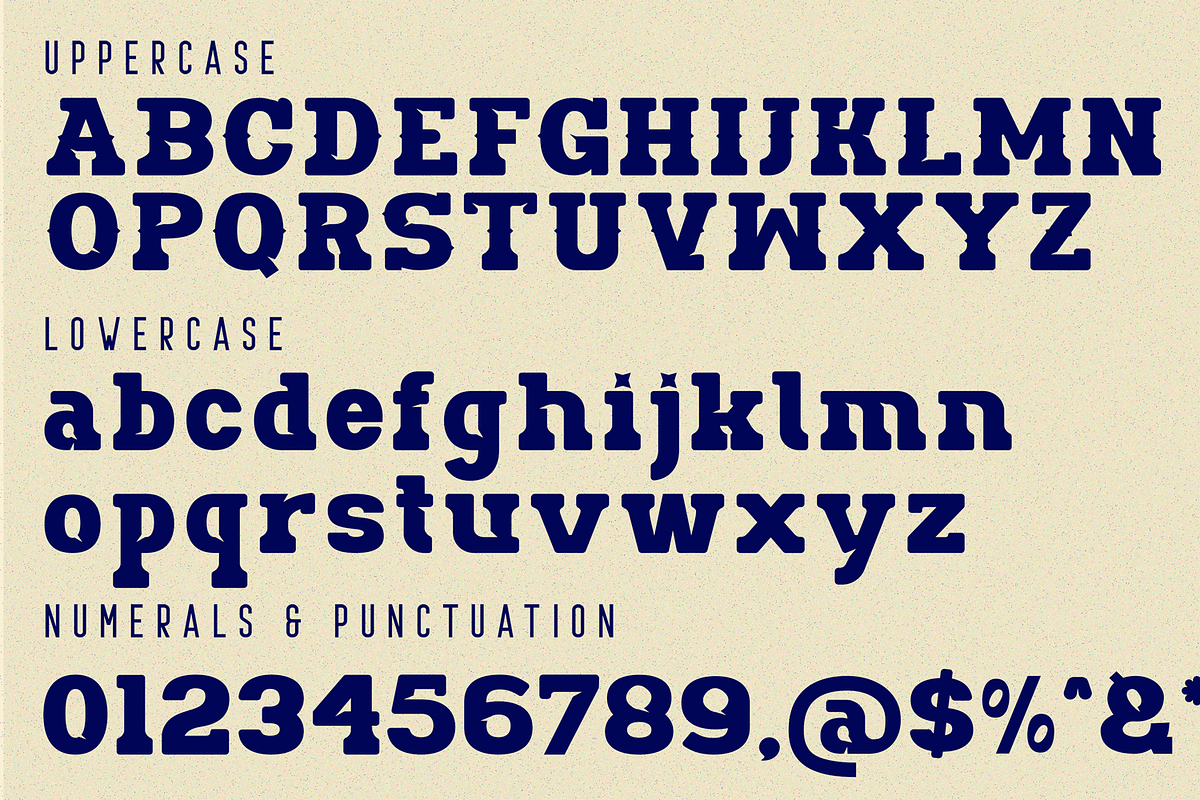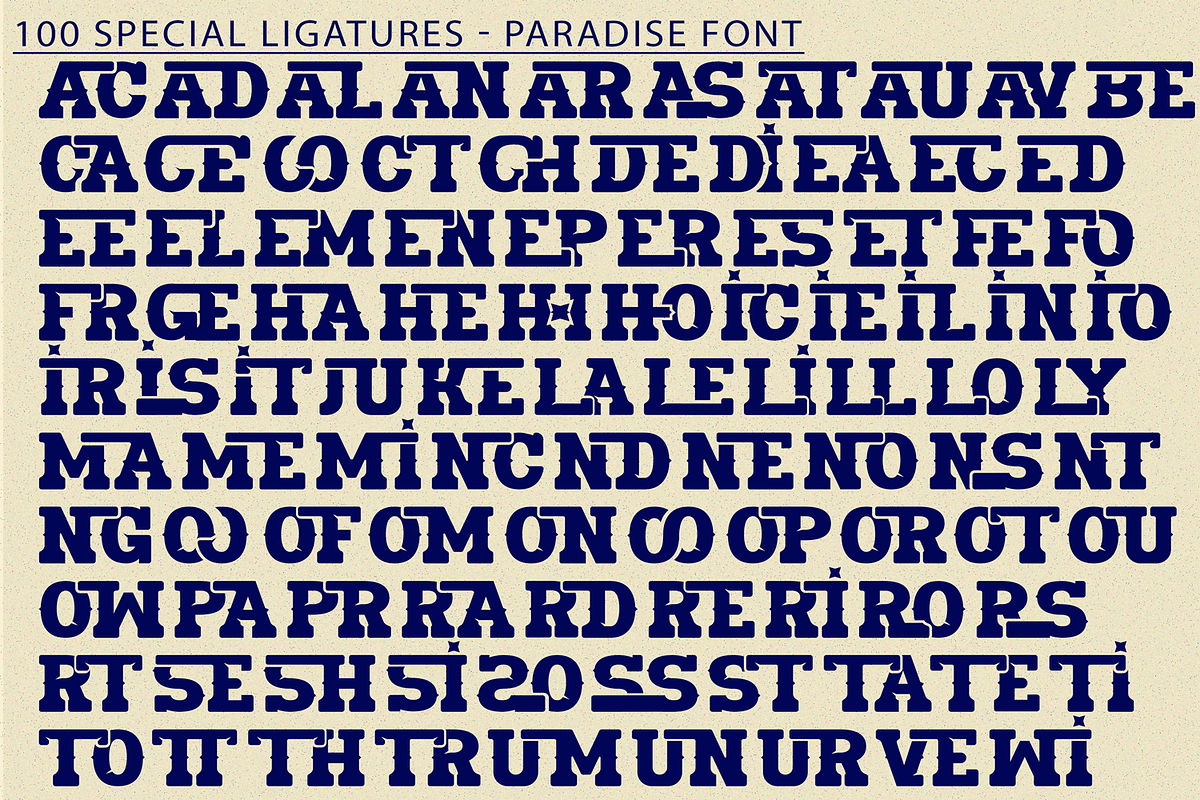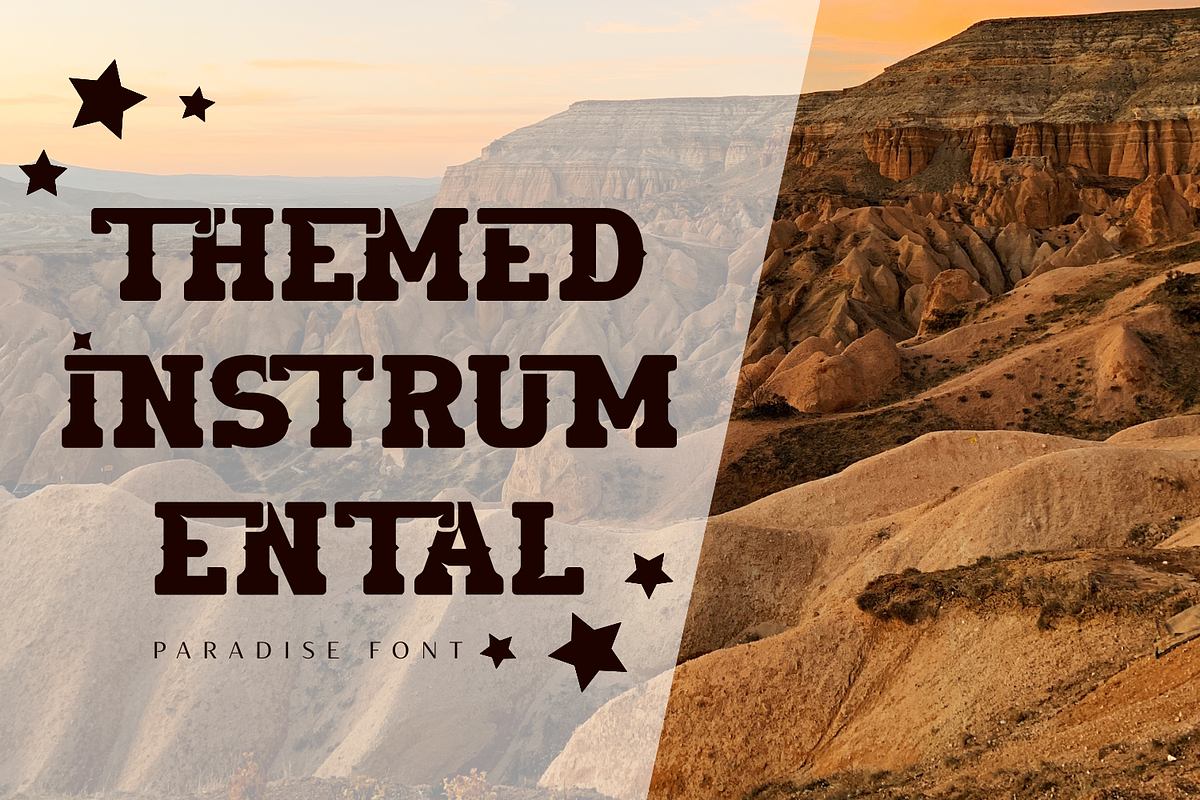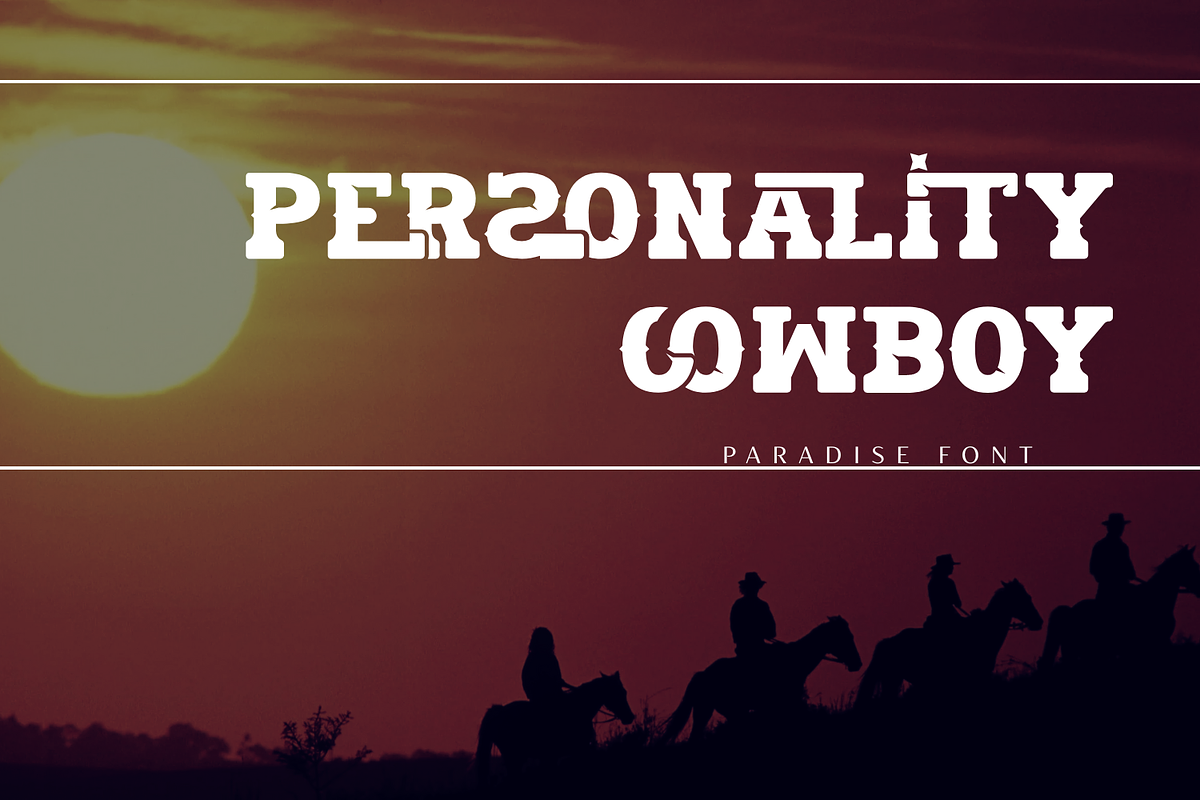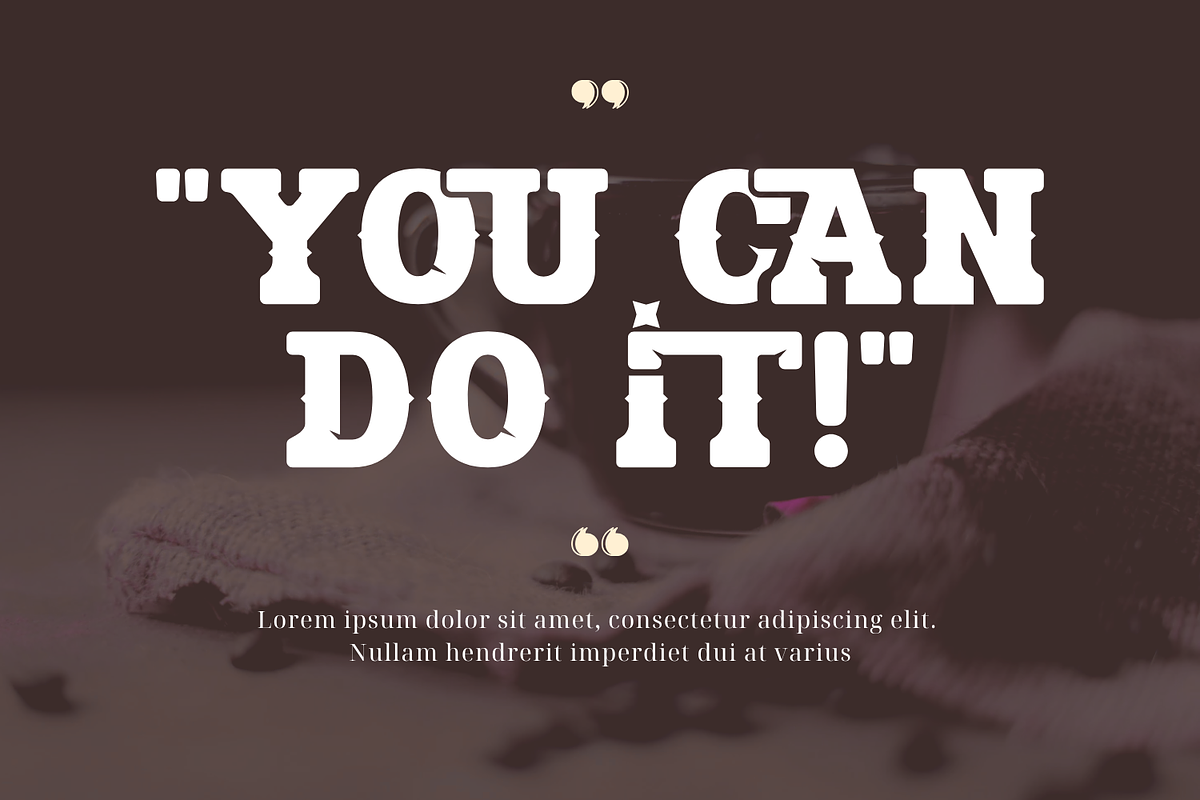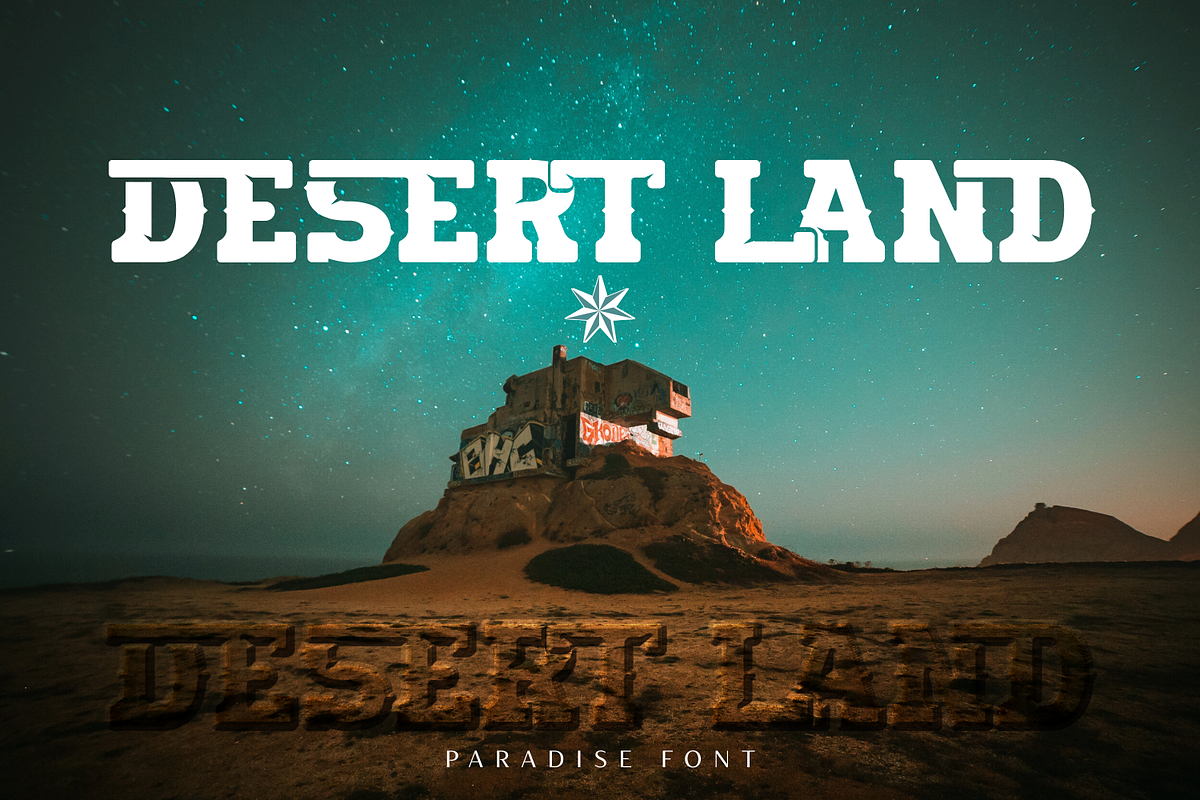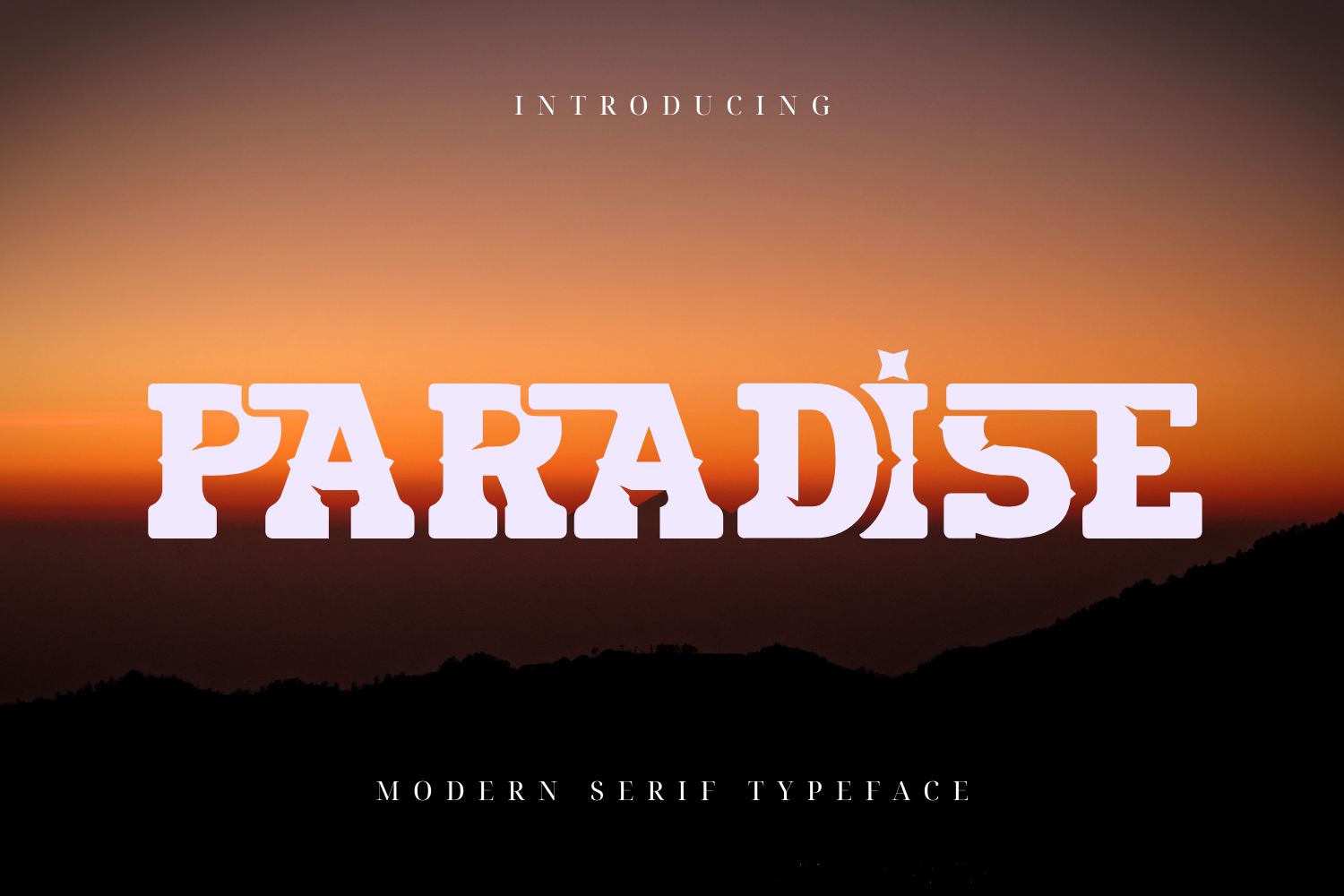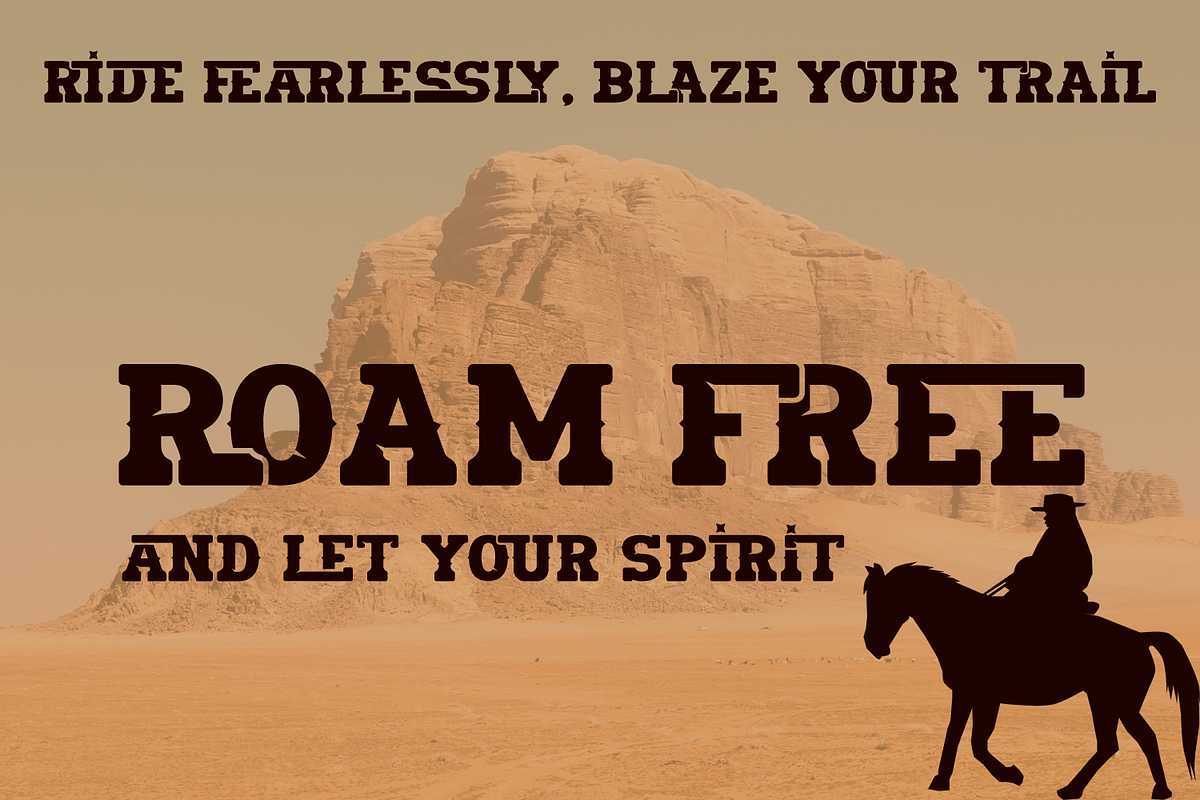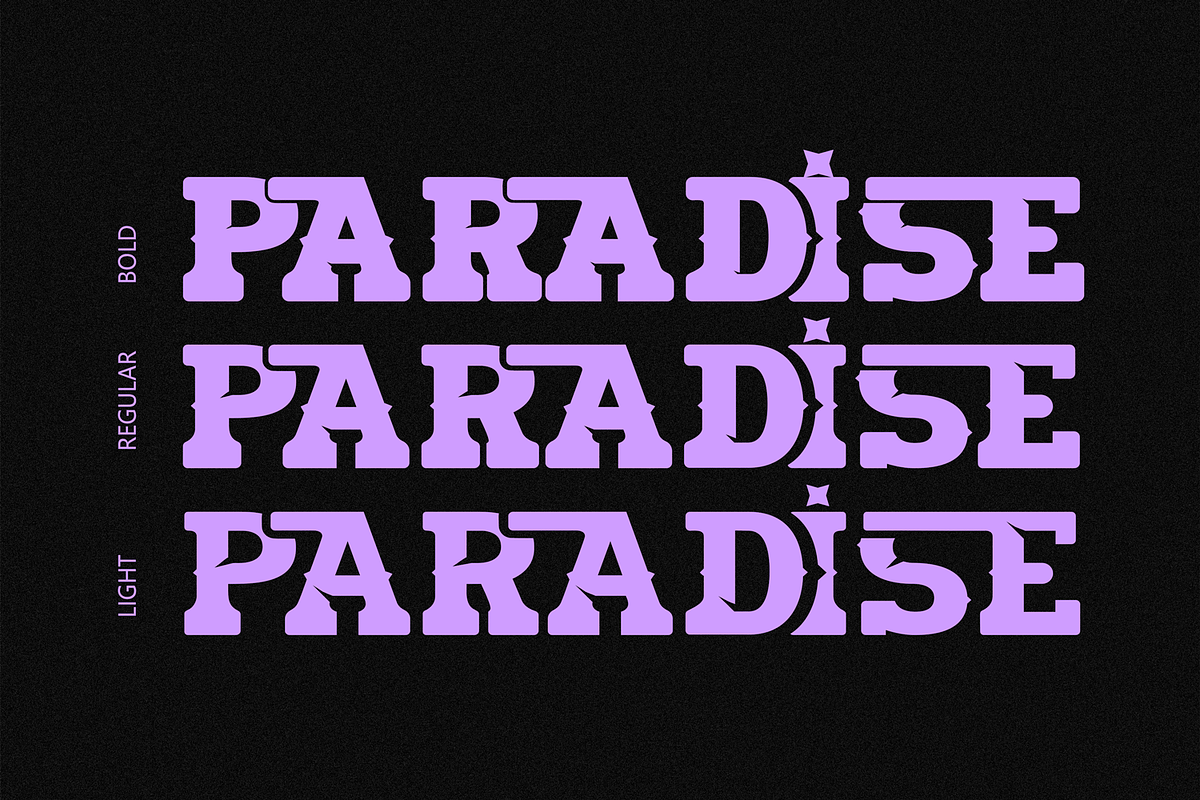
PARADISE | Bold Slab Serif Font
PARADISE FONT – A Bold Western Serif Font, a striking Modern Western Serif Typeface that blends vintage aesthetics with a contemporary touch. Designed for those who seek boldness and character in their typography, this font is perfect for logos, posters, merchandise, signage, and editorial designs.
✔ Uppercase & Lowercase Letters
✔ 100+ Special Ligatures for creative combinations
✔ Numerals & Punctuation for versatile design options
✔ Accented Characters for multilingual support
With its strong presence and stylish details, PARADISE is the ideal choice for projects that demand attention and a sense of uniqueness.
About 100 ligatures combined with Stylistic Alternates Font:
AC AD AL AN AR AS AT AU AV BE CA CE CH CO CT DE DI EA EC ED EE EL EM EN EP ER ES ET FE FO FR GE HA HE HI HO IE IC IL IN IO IR IS IT JU KE LA LE LI LL LO LY MA ME MI NC ND NE NG NO NT NS OC OF OM ON OO OP OR OT OU OW PA PR RA RD RE RI RO RS RT SE SH SI SO SS ST TA TE TH TI TO TR TT UM UN UR VE WI WO